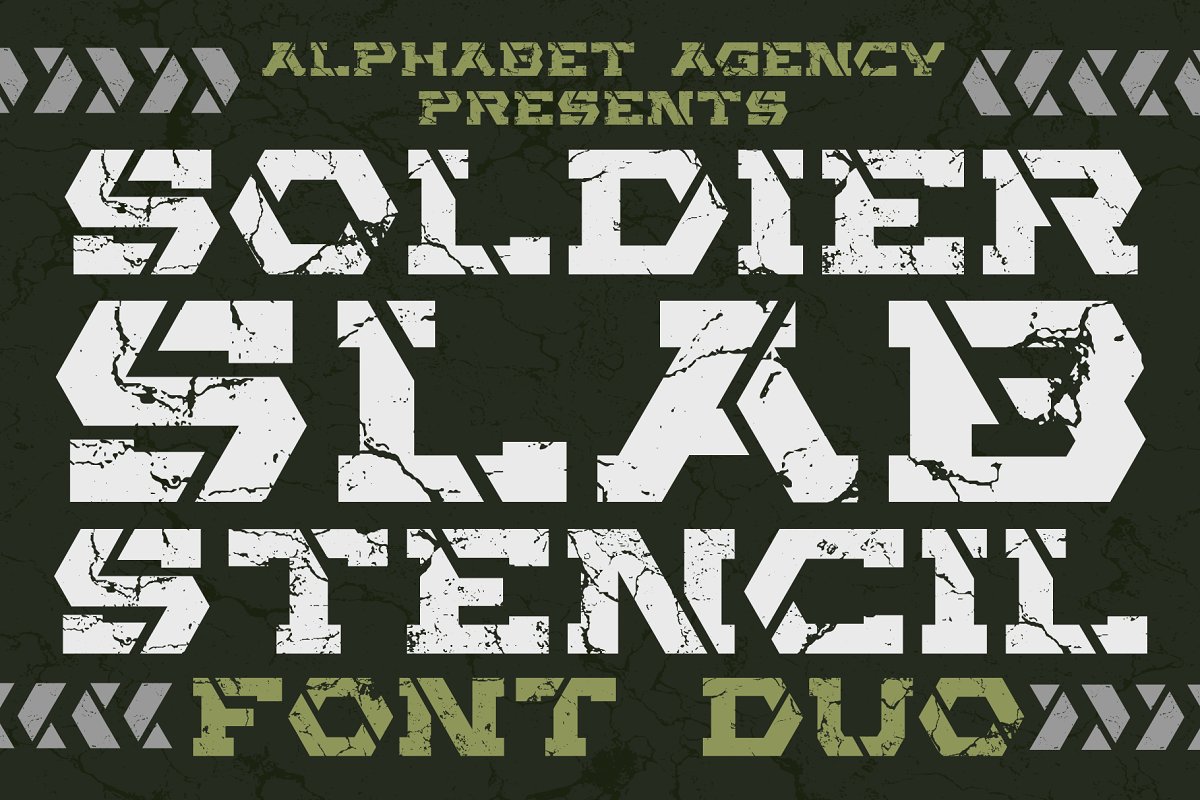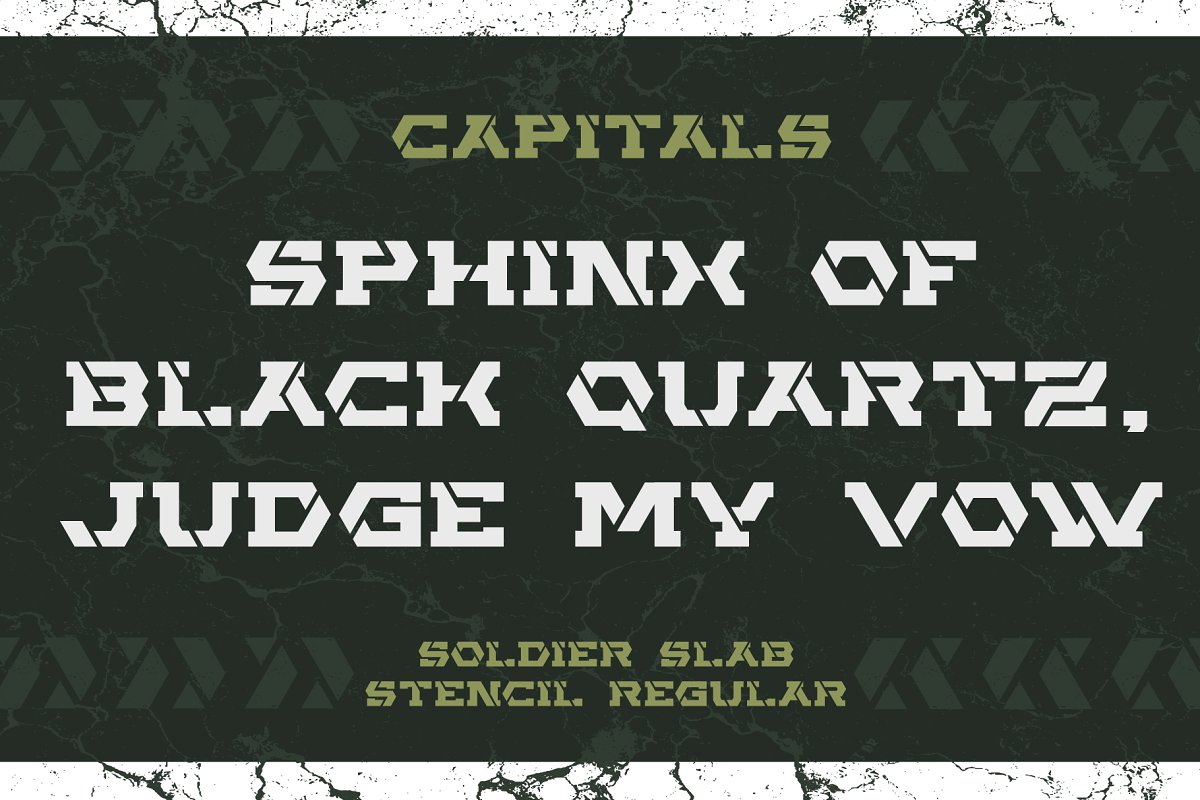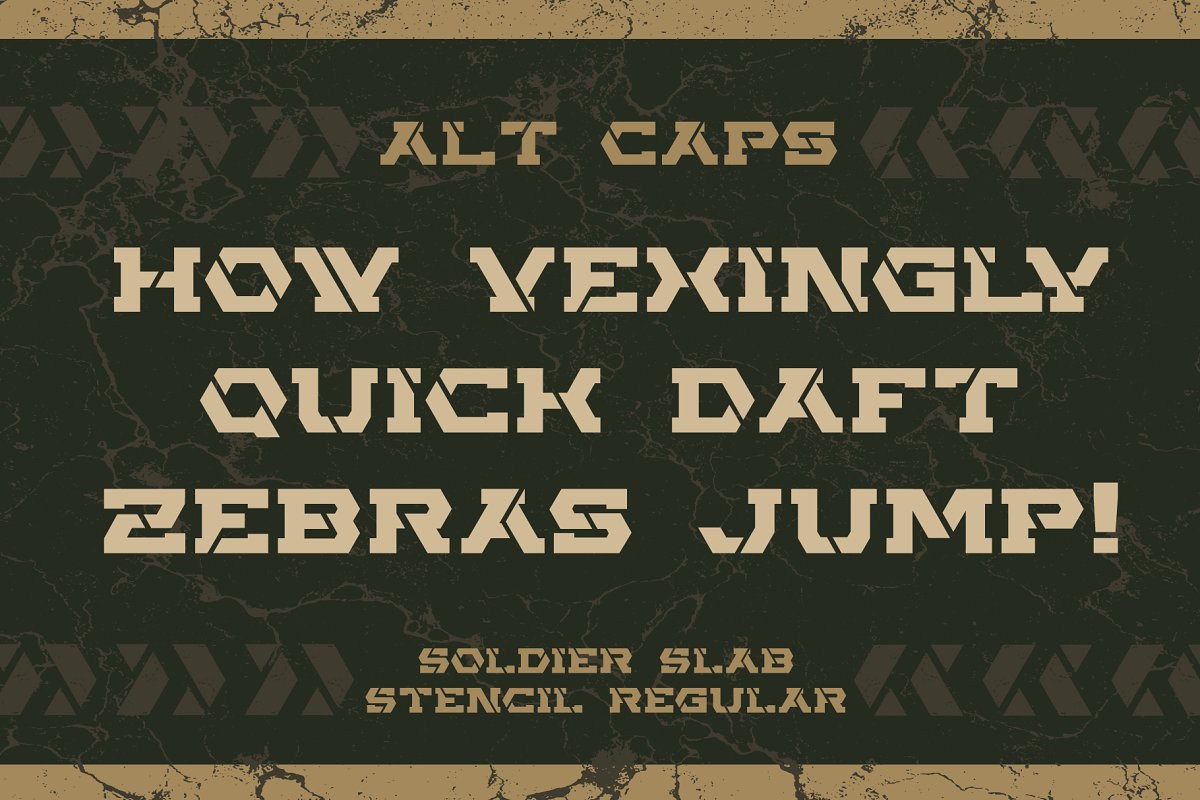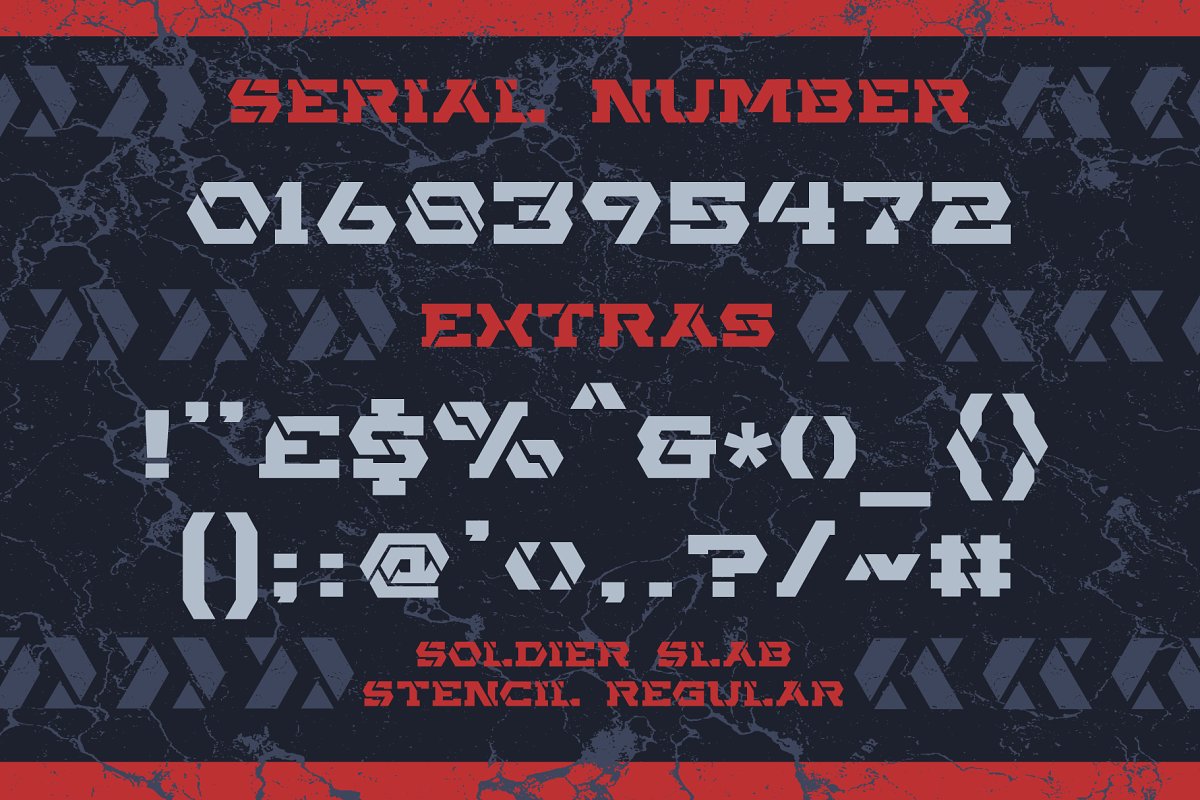
About the Soldier Slab Stencil Duo Font
Soldier Slab Stencil Font Duo consists of two fonts (as the name suggests); Soldier Slab Stencil Regular and Soldier Slab Stencil Dstrssd, Each font contains 26 letters of the English alphabet in capitals and alternative capitals are represented when typing in lowercase letters, Each font also contains numbers, punctuation and a range of Latin characters as displayed